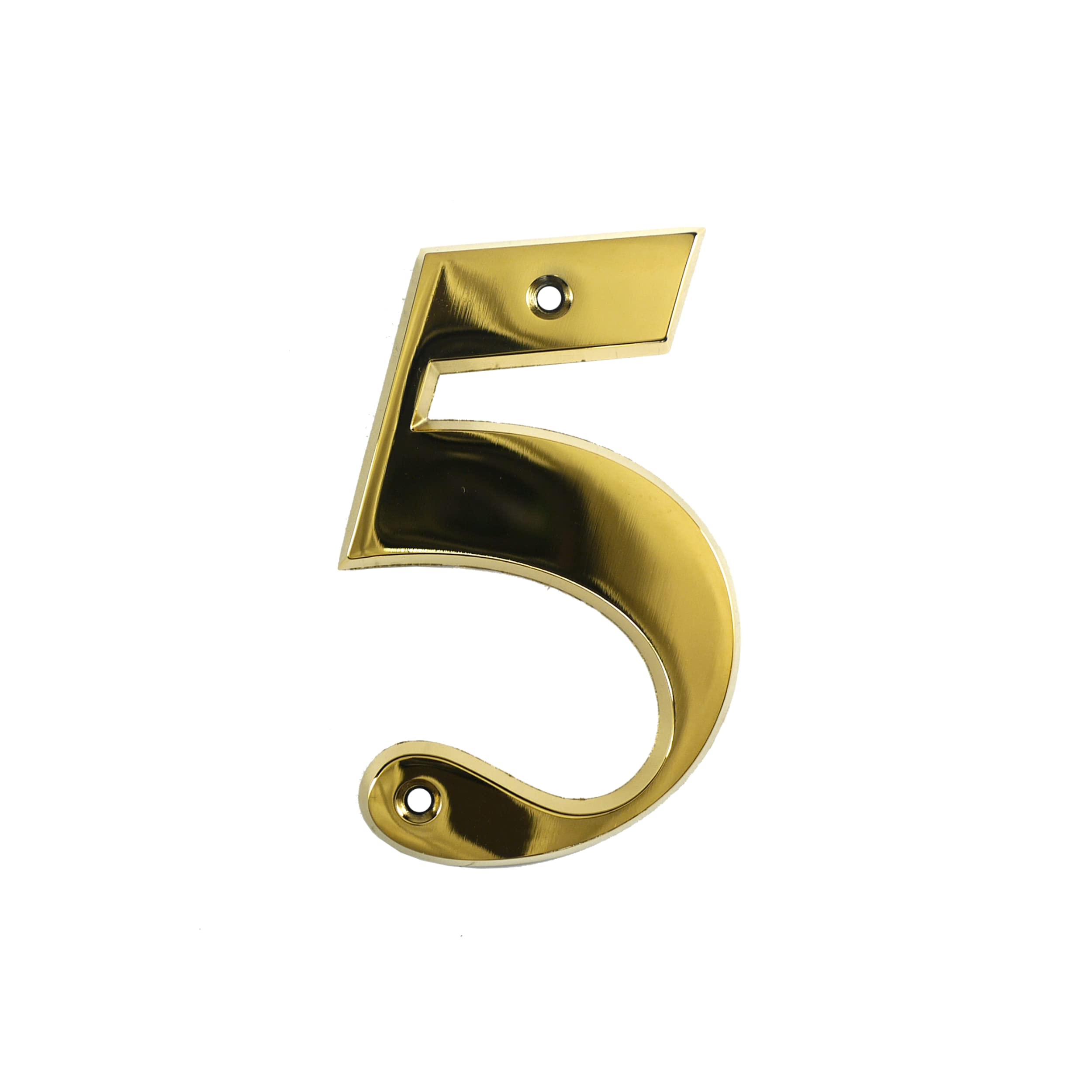
Best Font For Front Door Numbers . looking for the perfect font to display numbers on your project? Here’s another fan light number set in the bbc font, clear on a frosted background. Most favored address font at mhn, the 6 palm springs, blends midcentury style for popular appeal. The clear number 28 helps accentuate the clear border in the door glass, marrying up brilliantly. Check out our list of the 9 best number fonts, featuring sleek and modern options as well. wondering what is the most popular font for address numbers? Looks very classic in design, but bold, straight to the point. you can use bodoni flf if you need a number font for designing what’s going to appear on a front door, and it will also be a good choice if you want to try something that will work with street signs and similar.
Looks very classic in design, but bold, straight to the point. Here’s another fan light number set in the bbc font, clear on a frosted background. wondering what is the most popular font for address numbers? Check out our list of the 9 best number fonts, featuring sleek and modern options as well. The clear number 28 helps accentuate the clear border in the door glass, marrying up brilliantly. Most favored address font at mhn, the 6 palm springs, blends midcentury style for popular appeal. looking for the perfect font to display numbers on your project? you can use bodoni flf if you need a number font for designing what’s going to appear on a front door, and it will also be a good choice if you want to try something that will work with street signs and similar.
Add a classy number plaque to compliment a new front door. Door
Best Font For Front Door Numbers Looks very classic in design, but bold, straight to the point. wondering what is the most popular font for address numbers? Check out our list of the 9 best number fonts, featuring sleek and modern options as well. looking for the perfect font to display numbers on your project? Most favored address font at mhn, the 6 palm springs, blends midcentury style for popular appeal. Looks very classic in design, but bold, straight to the point. you can use bodoni flf if you need a number font for designing what’s going to appear on a front door, and it will also be a good choice if you want to try something that will work with street signs and similar. Here’s another fan light number set in the bbc font, clear on a frosted background. The clear number 28 helps accentuate the clear border in the door glass, marrying up brilliantly.
Add a classy number plaque to compliment a new front door. Door Best Font For Front Door Numbers wondering what is the most popular font for address numbers? Check out our list of the 9 best number fonts, featuring sleek and modern options as well. looking for the perfect font to display numbers on your project? Looks very classic in design, but bold, straight to the point. The clear number 28 helps accentuate the clear border. Best Font For Front Door Numbers.
How to Display House Numbers — LIVEN DESIGN Best Font For Front Door Numbers The clear number 28 helps accentuate the clear border in the door glass, marrying up brilliantly. Most favored address font at mhn, the 6 palm springs, blends midcentury style for popular appeal. looking for the perfect font to display numbers on your project? Check out our list of the 9 best number fonts, featuring sleek and modern options as. Best Font For Front Door Numbers.
serif front door number Front door, Front door numbers, Door numbers Best Font For Front Door Numbers Here’s another fan light number set in the bbc font, clear on a frosted background. The clear number 28 helps accentuate the clear border in the door glass, marrying up brilliantly. Check out our list of the 9 best number fonts, featuring sleek and modern options as well. you can use bodoni flf if you need a number font. Best Font For Front Door Numbers.
Door Numbers Decal for Door Front Door Sticker Number Etsy Best Font For Front Door Numbers Most favored address font at mhn, the 6 palm springs, blends midcentury style for popular appeal. you can use bodoni flf if you need a number font for designing what’s going to appear on a front door, and it will also be a good choice if you want to try something that will work with street signs and similar.. Best Font For Front Door Numbers.
20 Best Number Fonts for Displaying Stylish Numbers Best Font For Front Door Numbers Check out our list of the 9 best number fonts, featuring sleek and modern options as well. Looks very classic in design, but bold, straight to the point. wondering what is the most popular font for address numbers? Here’s another fan light number set in the bbc font, clear on a frosted background. Most favored address font at mhn,. Best Font For Front Door Numbers.
Front Door HOUSE Numbers vinyl lettering decal sign by invinyl Best Font For Front Door Numbers The clear number 28 helps accentuate the clear border in the door glass, marrying up brilliantly. wondering what is the most popular font for address numbers? Looks very classic in design, but bold, straight to the point. Most favored address font at mhn, the 6 palm springs, blends midcentury style for popular appeal. looking for the perfect font. Best Font For Front Door Numbers.
Vinyl House Numbers front door decal House Numbers for Front Best Font For Front Door Numbers looking for the perfect font to display numbers on your project? wondering what is the most popular font for address numbers? Check out our list of the 9 best number fonts, featuring sleek and modern options as well. Looks very classic in design, but bold, straight to the point. Here’s another fan light number set in the bbc. Best Font For Front Door Numbers.
Buy UAP House Numbers 3 Inch Door Numbers Signature Screw Fix Best Font For Front Door Numbers looking for the perfect font to display numbers on your project? Here’s another fan light number set in the bbc font, clear on a frosted background. The clear number 28 helps accentuate the clear border in the door glass, marrying up brilliantly. Looks very classic in design, but bold, straight to the point. wondering what is the most. Best Font For Front Door Numbers.
Front Door house numbers vinyl lettering by piccadillypeddler Best Font For Front Door Numbers Looks very classic in design, but bold, straight to the point. you can use bodoni flf if you need a number font for designing what’s going to appear on a front door, and it will also be a good choice if you want to try something that will work with street signs and similar. wondering what is the. Best Font For Front Door Numbers.